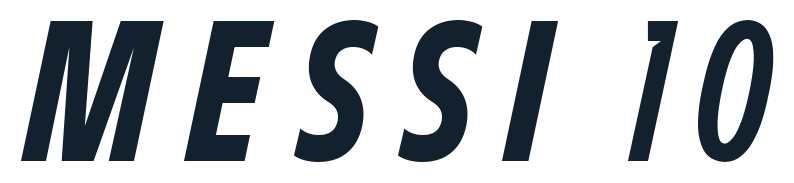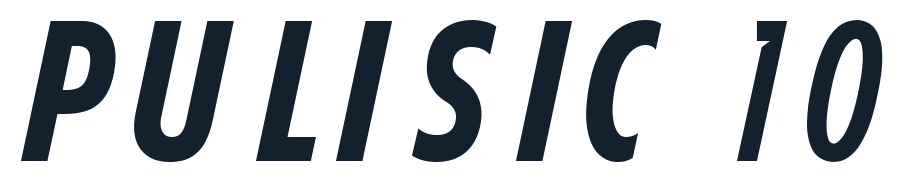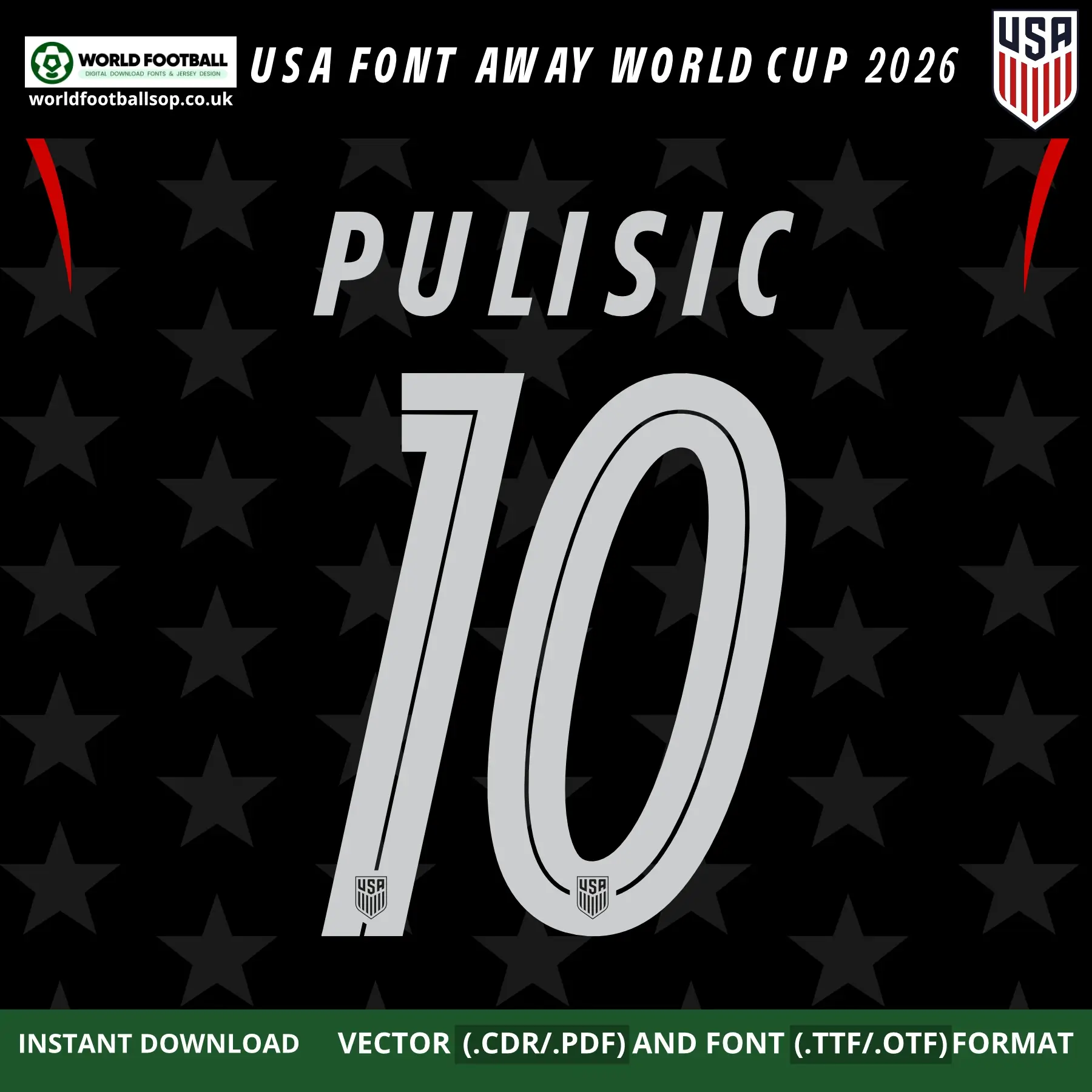
USA Font Away World Cup 2026 recreates the sleek silver Stars & Stripes numbers and letters from the USMNT 2026 carbon‑black away kit. Download TTF, OTF and vector files (CDR, PDF) with full A-Z alphabet, accents and 0-9 numbers featuring USA crests on vector digits for authentic Pulisic 10 away namesets.
USA Font Away World Cup 2026 - Stealth Stars & Stripes Look
The USA Font Away World Cup 2026 pack mirrors Nike’s bespoke Stars and Stripes Soccer Font as used on the United States’ carbon‑black away jersey. The numbers are tall, condensed and strongly slanted, combining a classic American collegiate feel with dynamic inner cut‑outs for a fast, modern aesthetic. On your covers the digits appear in light silver with a subtle dark outline over a black base filled with oversized tonal stars, matching the stealthy USMNT 2026 away kit.
Ideal for kit printers, designers and collectors, this pack lets you build accurate USA 2026 World Cup away namesets for players like Pulisic 10, Reyna and the full USMNT roster. Vector numbers include a small monochrome USA shield at the base, while the installed TTF/OTF fonts remain clean for posters, overlays and social content.
These files are perfect for custom USMNT away jerseys, tournament‑themed graphics and fan merch inspired by the blacked‑out star kit for the home World Cup.
Design highlights
• Stealth palette: Silver numbers on carbon‑black fabric echo the 2026 away kit’s tonal star pattern and monochrome badge.​
• Consistent identity: Uses the same bespoke Stars and Stripes font family as the home kit, keeping USA typography unified across both uniforms.
• High legibility: Bold slanted shapes and inner cut‑outs ensure excellent readability under stadium lights and on TV despite the dark base.